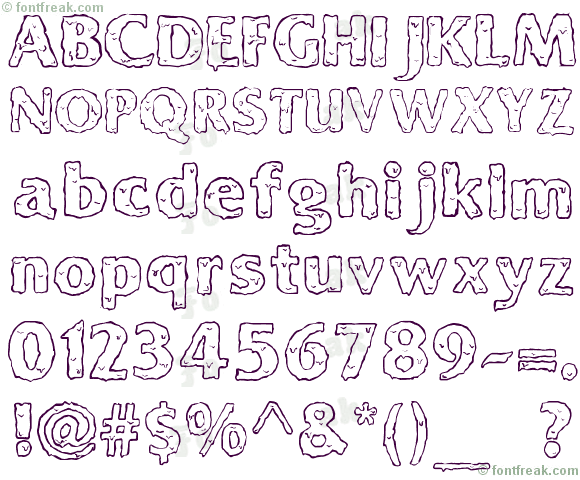
Ooky
About Ooky
The Ooky font by Gemfonts is a whimsical, decorative typeface that captures a playful essence, making it perfect for various creative applications. As a display font, Ooky features a unique hand-drawn style, characterized by its uneven stroke weight and irregular shapes that evoke a sense of charm and personality. The letters have a slight contrast in thickness, giving them a dynamic appearance, while the generous spacing between characters enhances legibility and adds to the light-hearted feel of the font.
This font is particularly well-suited for use in projects such as children's book covers, party invitations, and playful branding for small businesses. Its quirky design makes it an excellent choice for event flyers, especially those targeting a younger audience or themed parties. Additionally, Ooky can shine in social media graphics, where eye-catching visuals are crucial for engagement. Graphic designers and content creators will find this font versatile enough to capture attention while maintaining a fun and approachable tone.
Targeting a broad audience, including small business owners and creative professionals, the Ooky font offers a fresh alternative to traditional typefaces. The freeware license allows users to incorporate this delightful font into their projects without financial constraints, making it accessible for anyone looking to add a touch of whimsy to their designs.
What sets the Ooky font apart is its ability to convey a sense of fun and creativity without sacrificing readability. Its distinctive style invites users to explore their imaginations, making it an ideal choice for projects that require a playful touch. For those seeking a standout typeface that is both charming and functional, the Ooky font free download is an excellent option to consider.